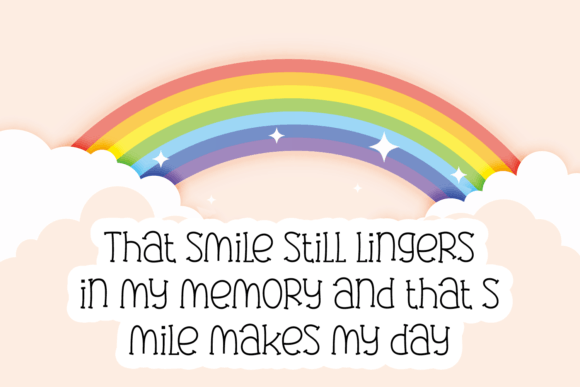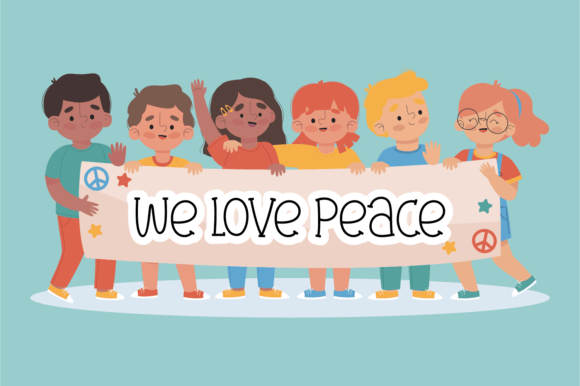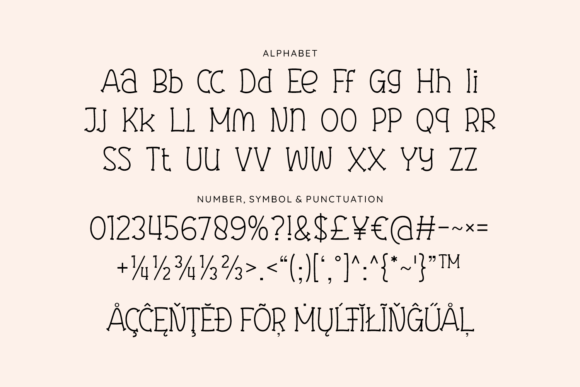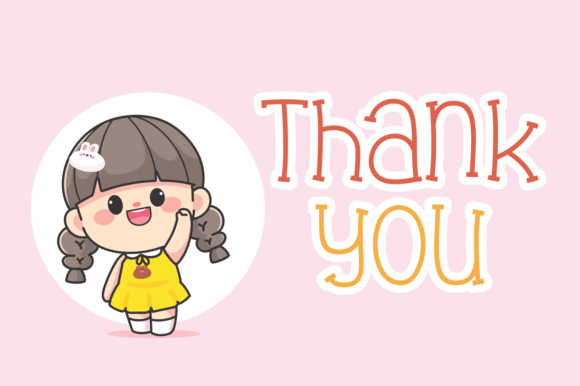
Introduction to Enjoy More Font
Have you ever stared at a blank canvas, eager to bring your creative vision to life, only to be stuck on the perfect font? The search for that perfect font can be overwhelming, but what if you stumbled upon a hidden gem that made your designs sparkle? For designers and creatives, finding the right font can make all the difference in elevating a project from good to great.
That’s where the Enjoy More Font comes in – a delightful and elegant serif font that’s perfect for adding a touch of whimsy to your designs. Whether you’re working on a website, card, or t-shirt, this font is sure to bring a smile to your face and your audience’s.
- High-quality, professional design ideal for creative projects, including logos, branding materials, and marketing campaigns.
- Features a clean, modern aesthetic that is easily scalable, suitable for use in various resolutions, including high-resolution displays.
- Includes a range of weights and styles, providing designers with the flexibility to tailor the font to their specific creative project needs.
- Designed to be highly legible, ensuring that text remains clear and readable even at smaller font sizes.
I recently had the chance to work with the Enjoy More Font, and I must say it’s been a pleasant experience. The font is a great addition to any creative project, offering a unique and modern touch.
- High-quality design: The Enjoy More Font is crafted with precision and care, resulting in a polished and professional look.
- Limited font styles: The Enjoy More Font only comes in a few styles, which may not be enough for designers working on complex projects.
Overall, I’m impressed with the Enjoy More Font. While it’s not perfect, its high-quality design and transparent background make it a valuable addition to any design resource. With a few tweaks and updates, I’m confident that this font will become a go-to choice for designers everywhere.
The Enjoy More Font is ideal for use in creative projects such as branding, marketing materials, and social media graphics. It’s also a great choice for presentations, resumes, and other documents where a high-quality font is essential.